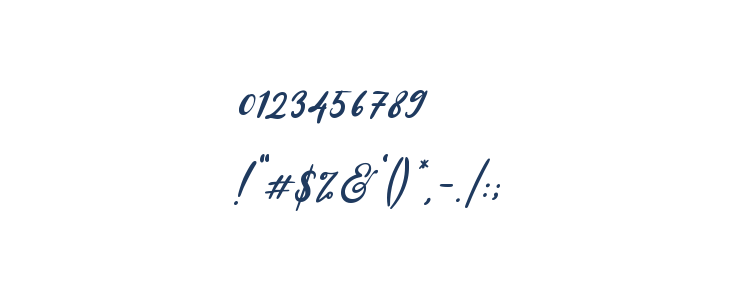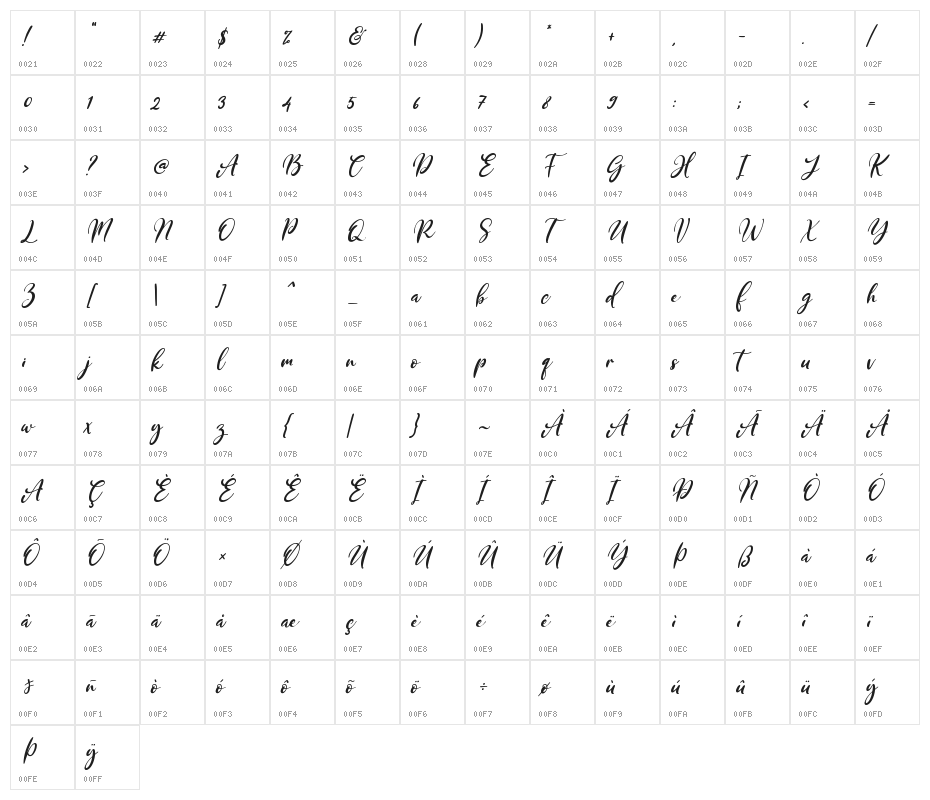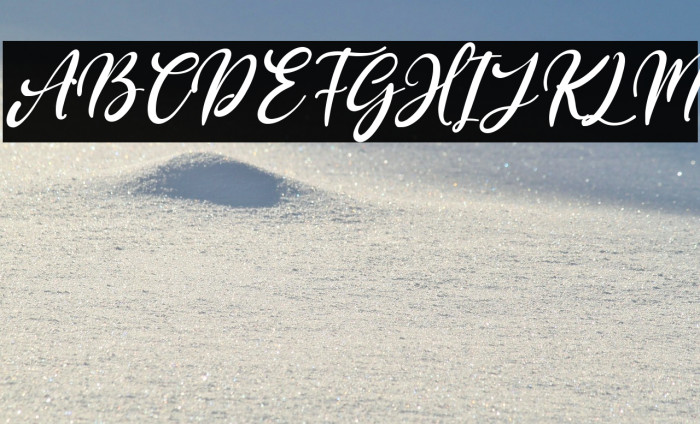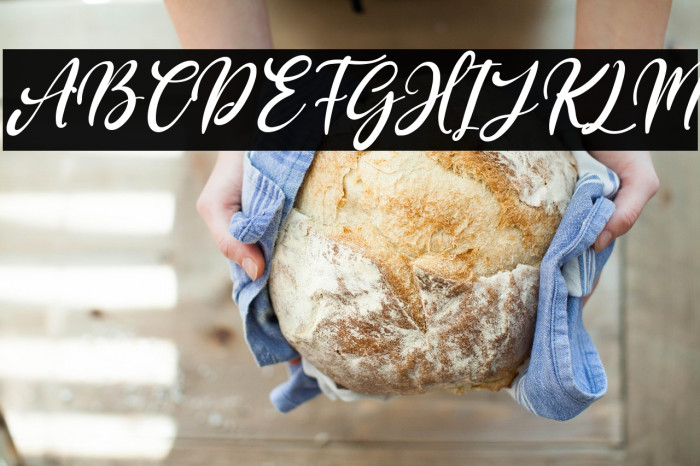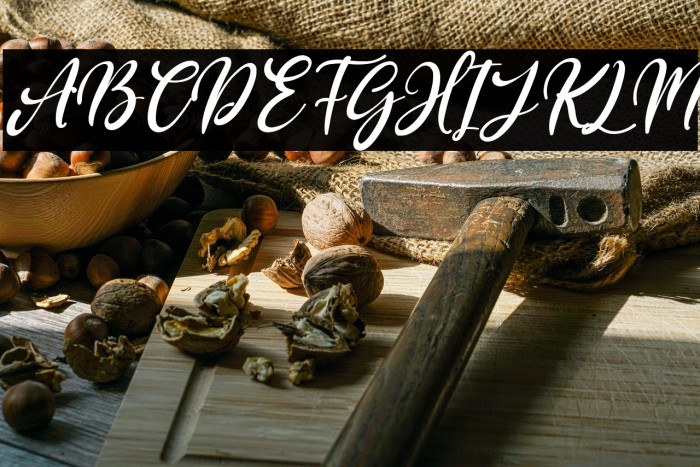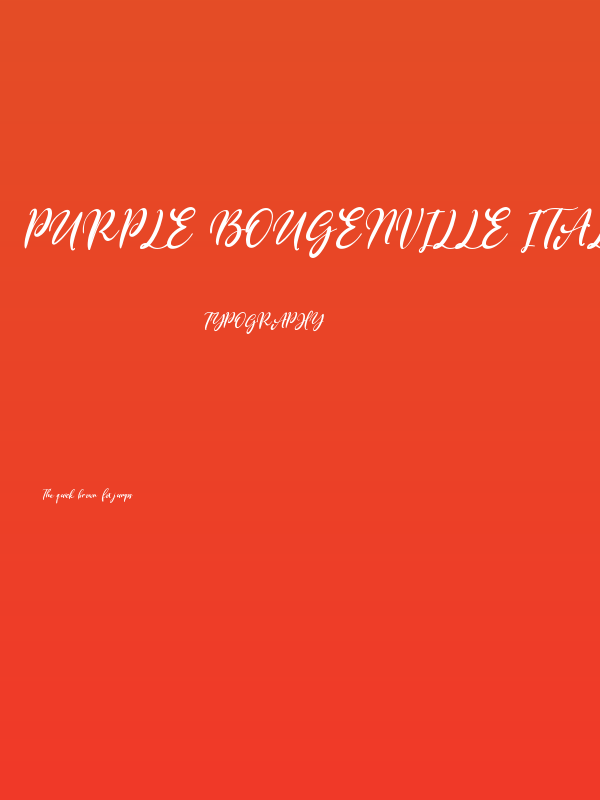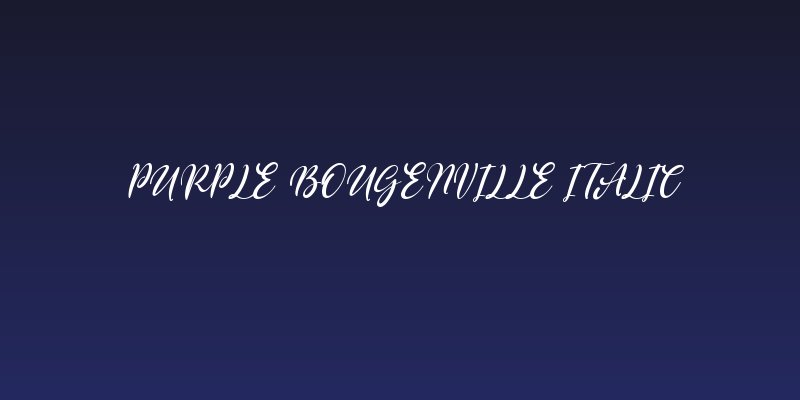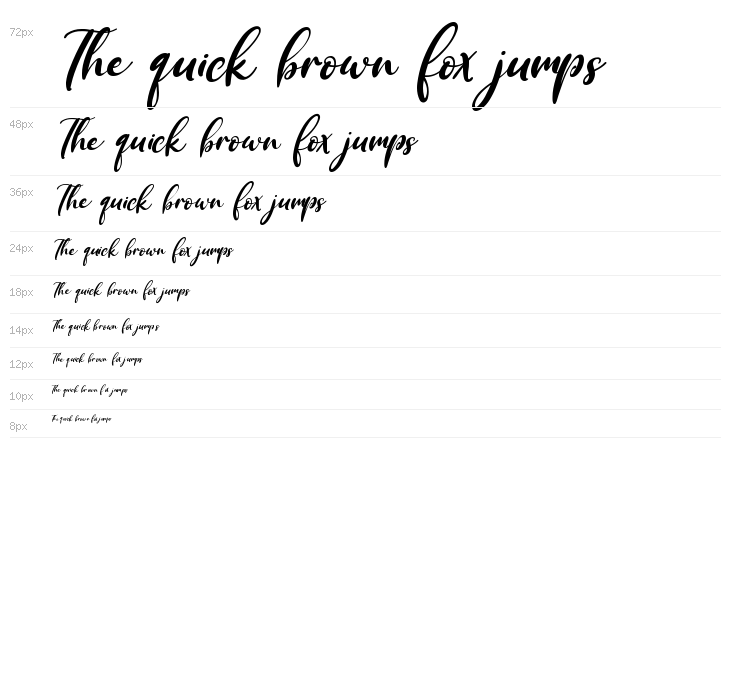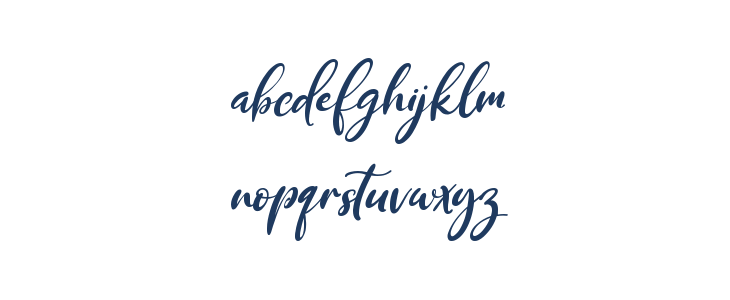
Purple Bougenville Italic Font
Purple Bougenville Italic Description
This elegant script font features a flowing, cursive style with a distinct italic slant. The characters are interconnected, creating a seamless and fluid appearance. The uppercase letters are bold and expressive, while the lowercase letters maintain a graceful and consistent flow. The numerals and special characters complement the overall aesthetic, adding versatility to the font. The strokes vary in thickness, providing a dynamic and lively contrast that enhances readability and visual appeal. This font exudes a sense of sophistication and charm, making it suitable for a variety of creative applications.